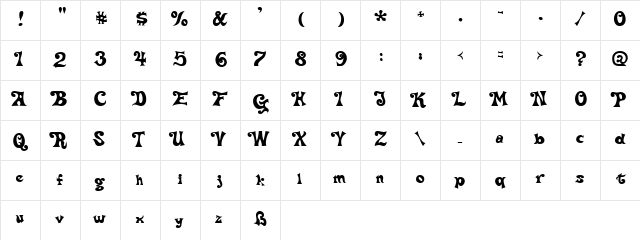
Delta Hey Max Nine Regular
Design Context for Delta Hey Max Nine Typeface
Delta Hey Max Nine is a composed and adaptable typeface that performs quietly and consistently across a wide range of design contexts.